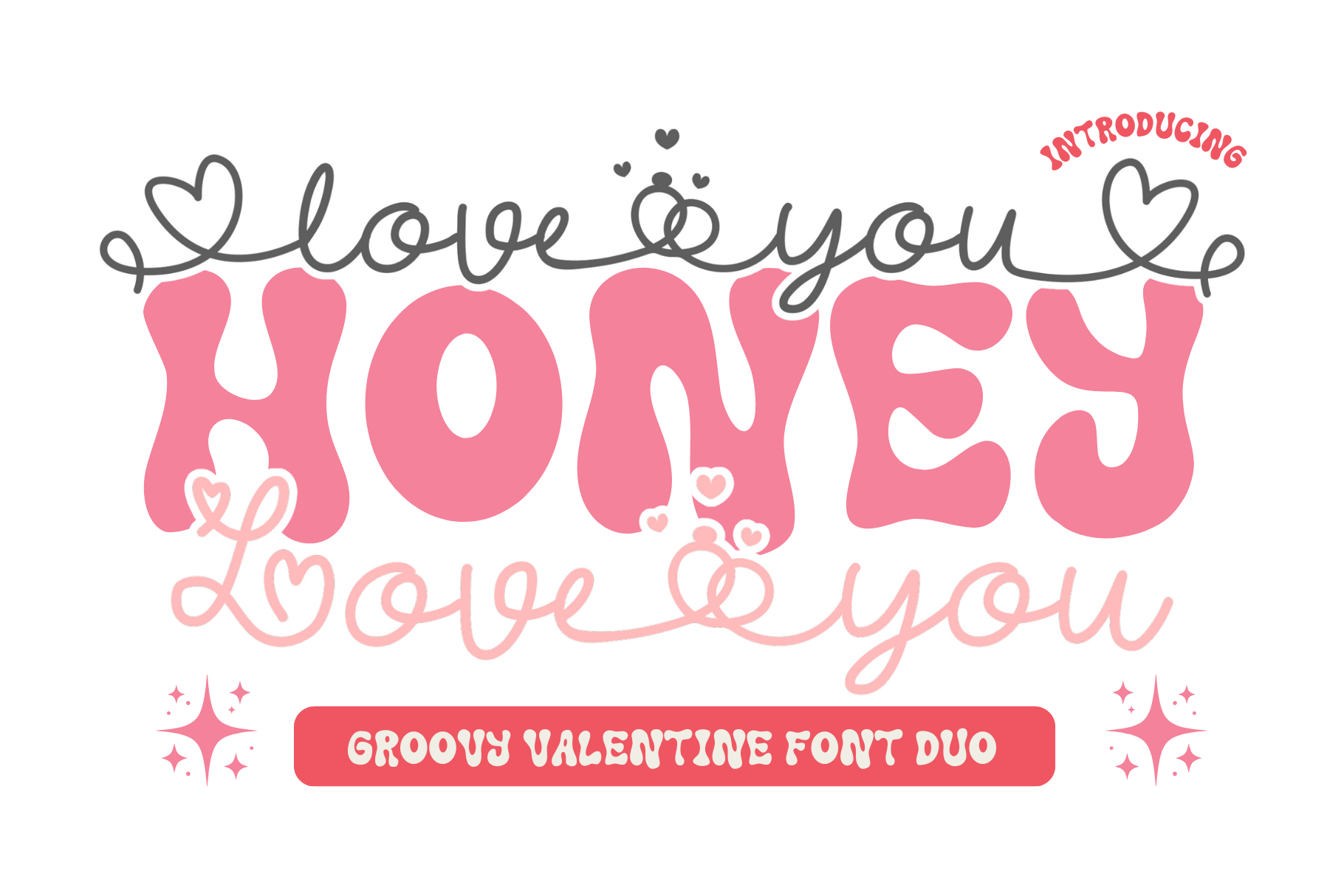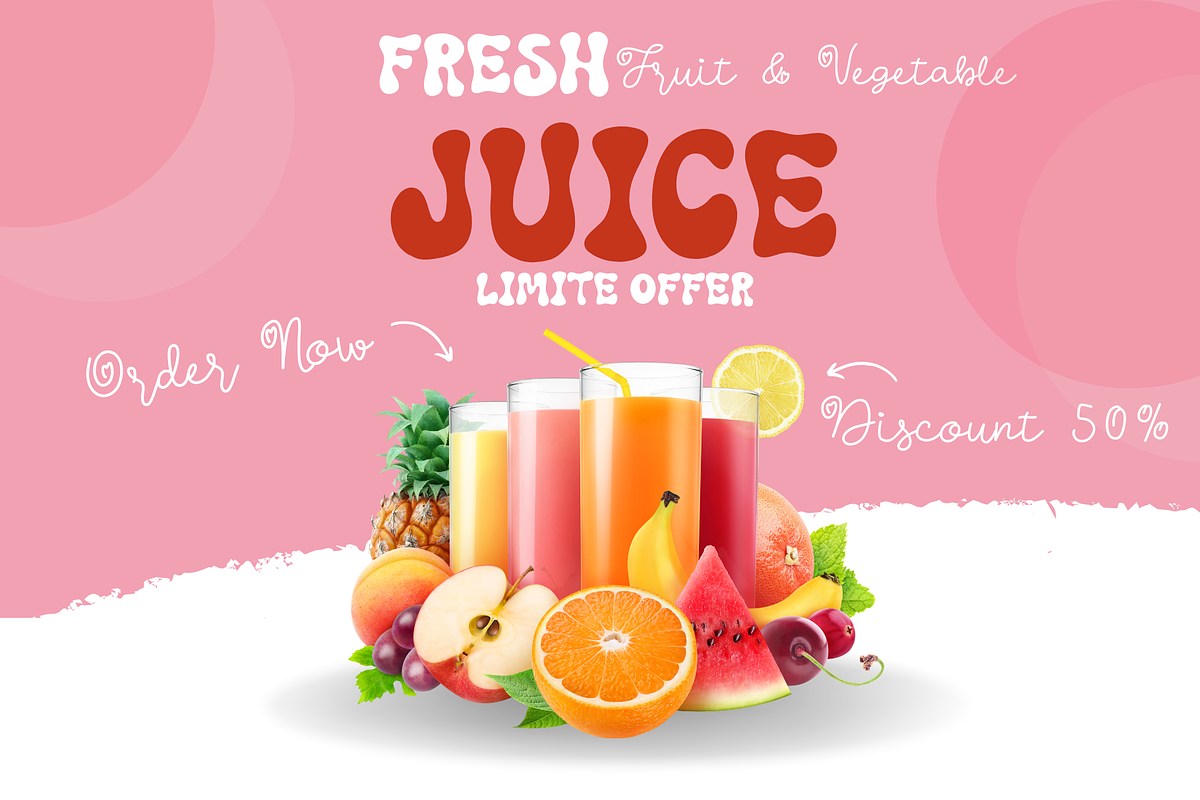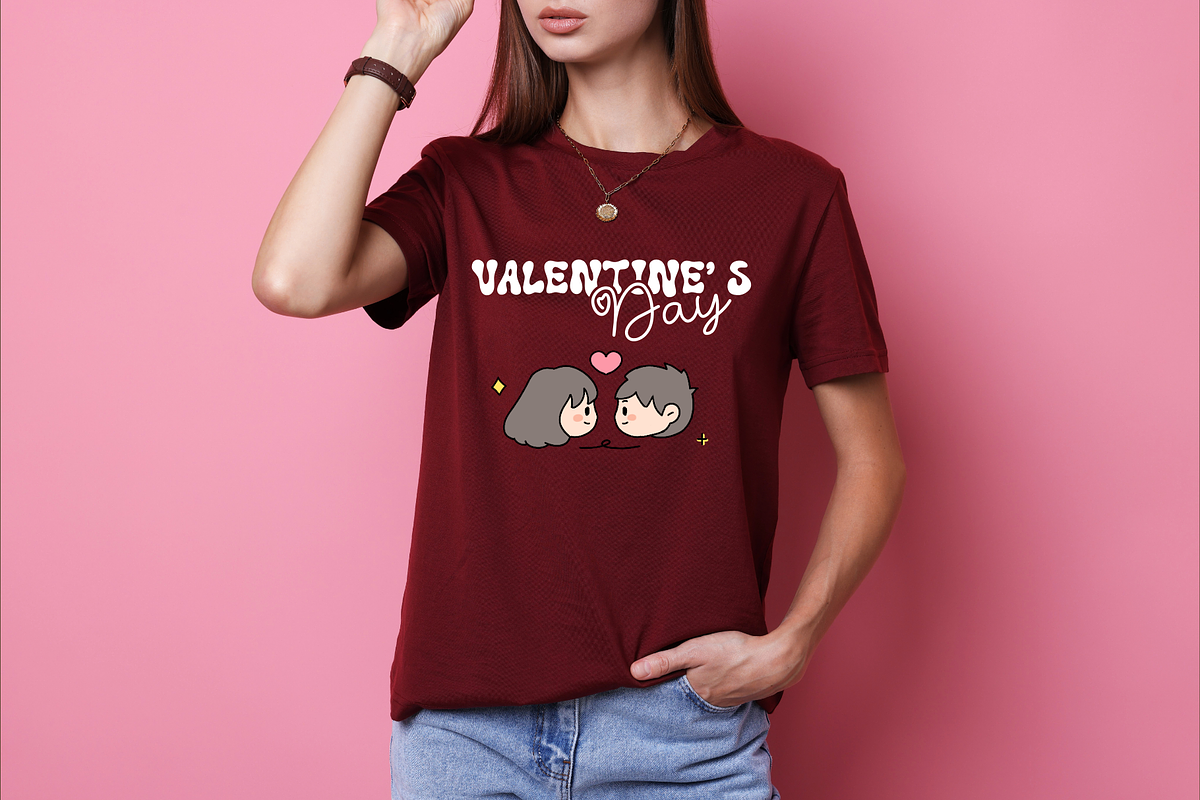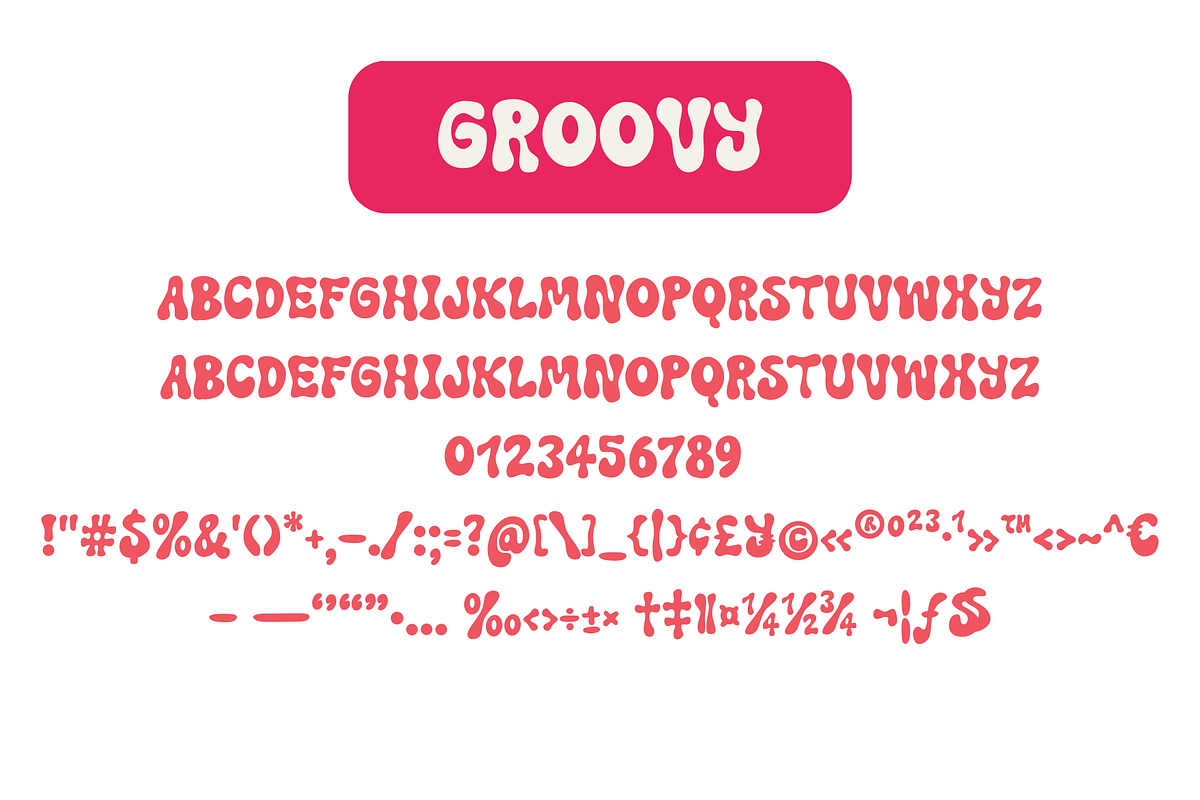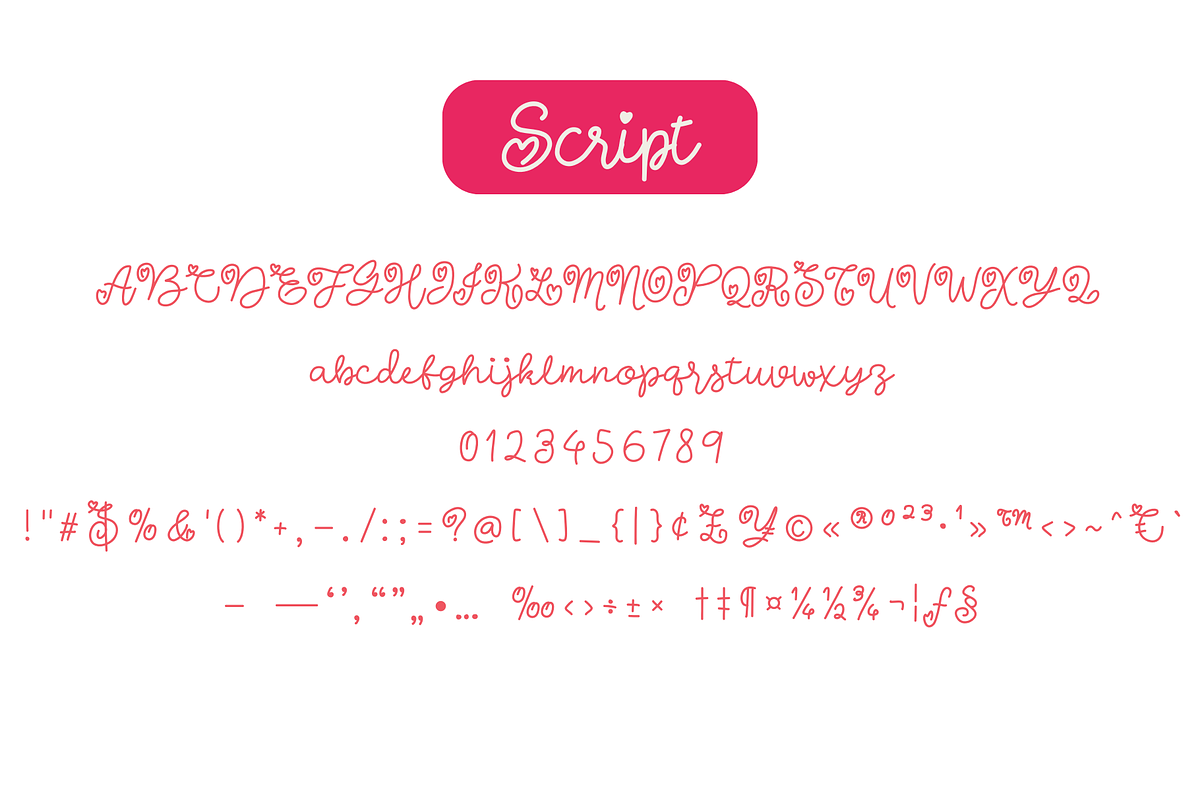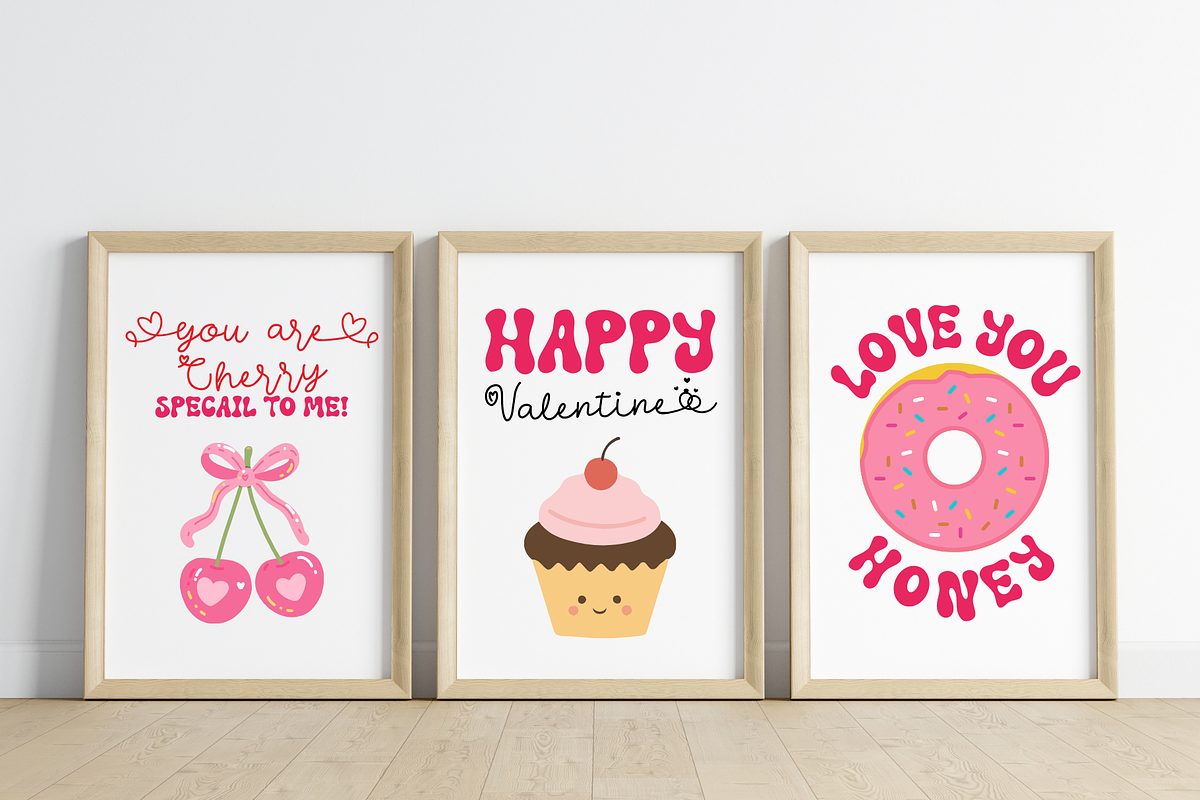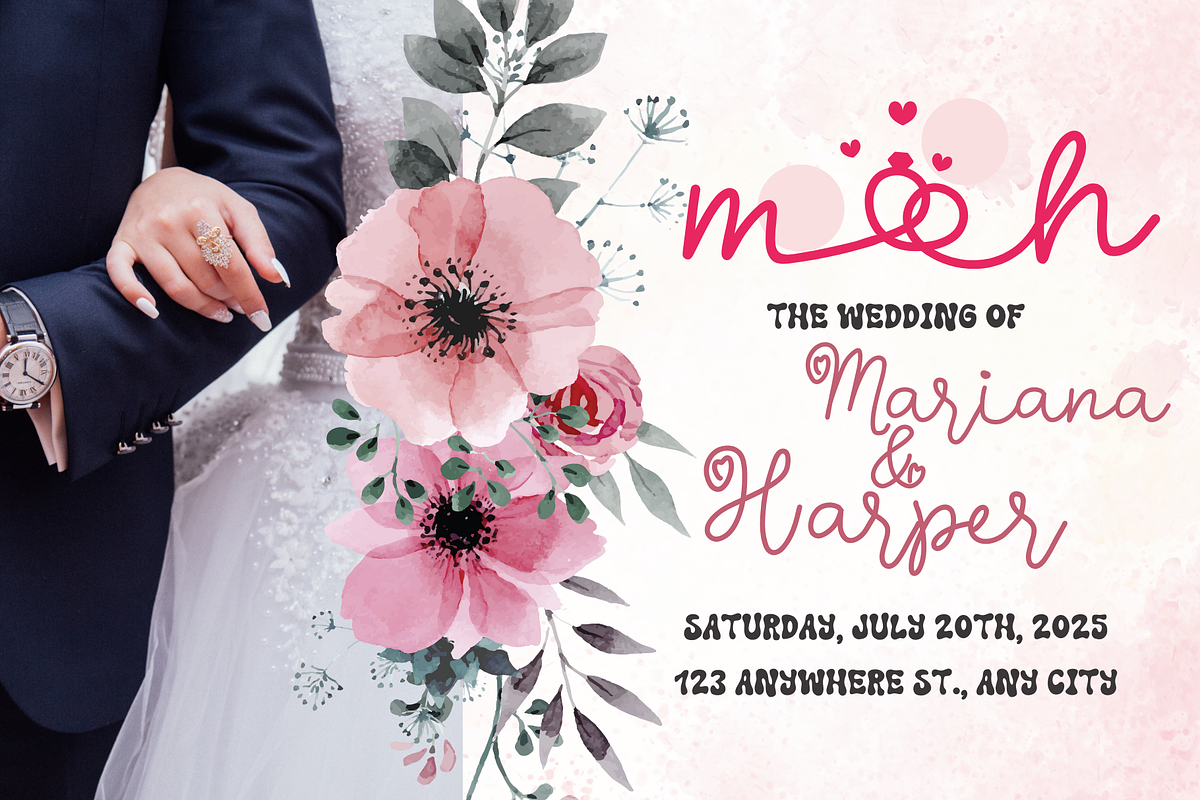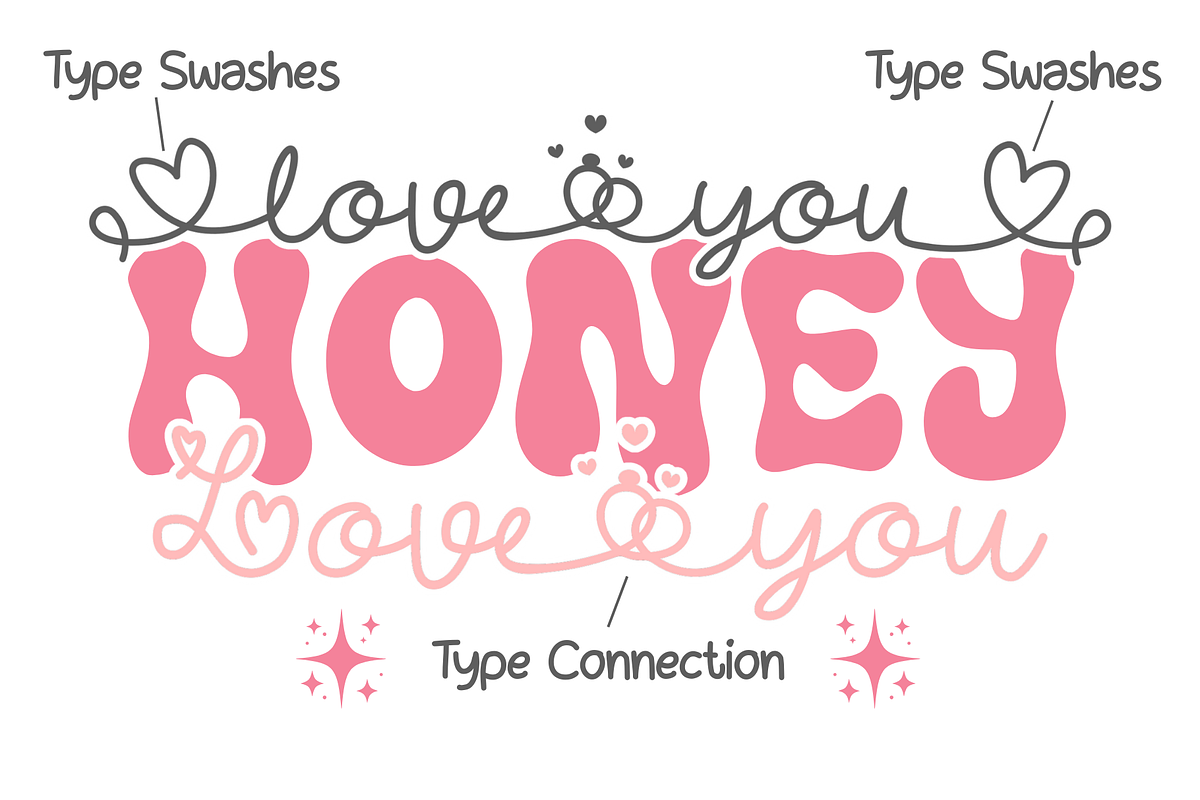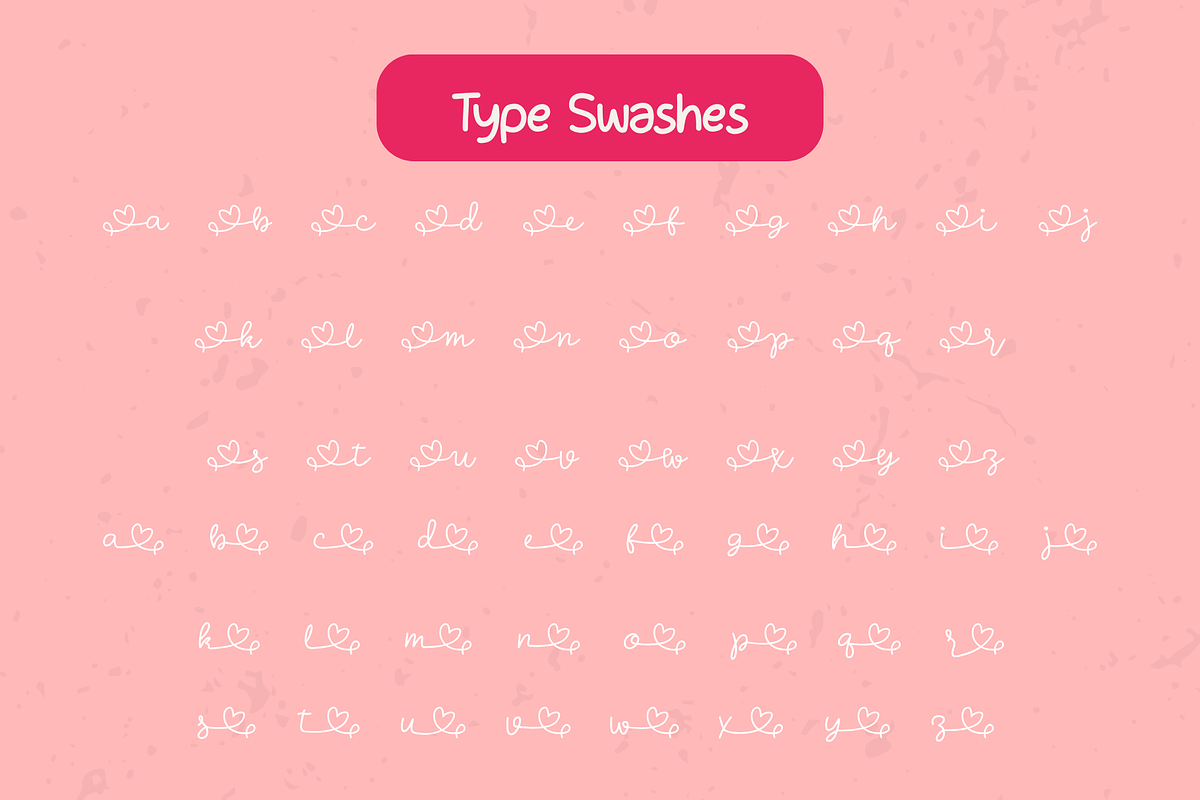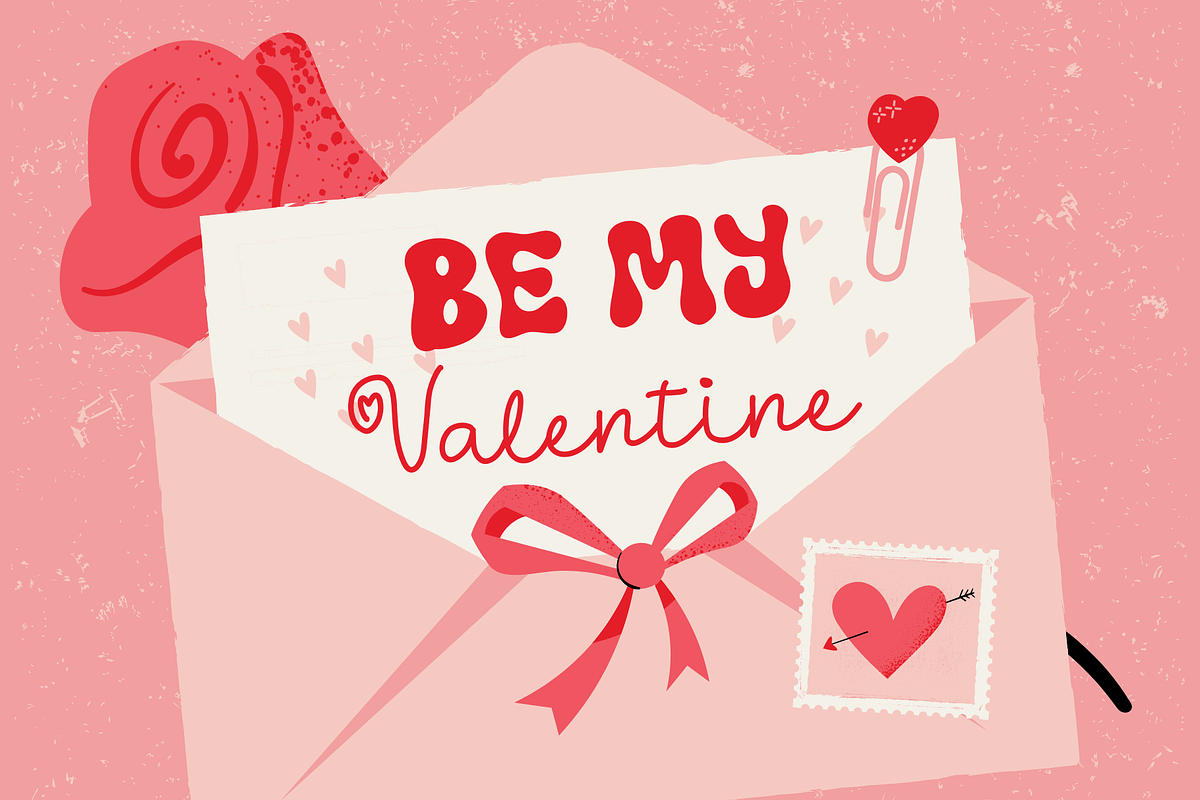
Love You Honey - Valentine Duo Font
The groovy display font brings rounded, bouncy letterforms that stand out instantly, while the script font adds a soft, flowing contrast for emphasis and elegance. Together, they create a balanced typographic duo ideal for expressive headlines and supporting text.
Love You Honey is perfect for Valentine’s Day designs, logos, branding, packaging, wedding invitations, greeting cards, posters, quotes, social media graphics, and retro-inspired creative projects. Whether used together or separately, both fonts complement each other beautifully and elevate your designs with a cheerful, romantic mood.